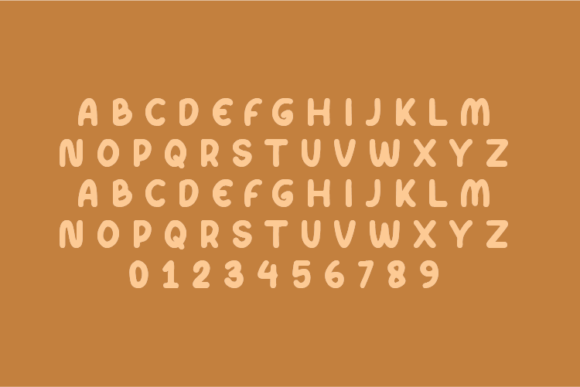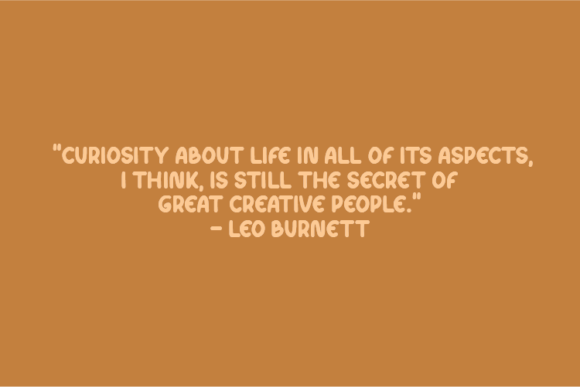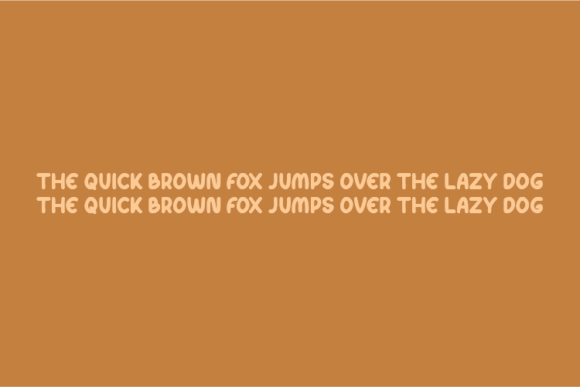
Doughnuts Font: A Deliciously Unique Display Font
Are you tired of using the same old fonts for your designs? Look no further than the Doughnuts Font, a natural display font that’s sure to add a touch of whimsy to your projects. What sets Doughnuts apart is its unique approach to font design, where not a single node in each character’s indentation has been altered. This results in a font that’s not only interesting and unique but also perfect for a variety of applications.
The Story Behind Doughnuts Font
The Doughnuts Font is a result of a creative experiment to push the boundaries of traditional font design. By leaving each character’s indentation untouched, the designer has created a font that’s reminiscent of handwritten notes, yet still maintains a level of sophistication. This approach gives Doughnuts a distinctive look that’s sure to grab attention.
Characteristics of Doughnuts Font
So, what makes Doughnuts Font so special? Here are a few key characteristics that set it apart:
- Natural look: The font’s natural, unaltered indentation gives it a relaxed, organic feel that’s perfect for designs that need a personal touch.
- Unique style: The unchanged nodes in each character create a distinctive look that’s unlike any other font.
- Versatility: Doughnuts Font is perfect for a wide range of applications, from quotes and notes to t-shirts and other merchandise.
Uses for Doughnuts Font
Doughnuts Font is a versatile typeface that can be used in a variety of creative projects. Here are a few ideas to get you started:
- Quotes and posters: Add a touch of personality to your inspirational quotes and posters with Doughnuts Font.
- Notes and journals: Use Doughnuts Font to add a personal touch to your notes, journals, and planners.
- T-shirts and merchandise: Create eye-catching designs for t-shirts, mugs, and other merchandise with Doughnuts Font.
- Digital media: Use Doughnuts Font in your digital media, such as social media graphics, blog posts, and email newsletters.
Why Designers and Crafters Love Doughnuts Font
Designers and crafters alike are drawn to Doughnuts Font for its unique style and versatility. Here are a few reasons why:
- Ease of use: Doughnuts Font is easy to read and use, making it perfect for a wide range of projects.
- Customization: The font’s unique style allows for endless customization options, so you can make it your own.
- Inspiration: Doughnuts Font is sure to inspire your creativity, whether you’re designing a poster, crafting a journal page, or creating a social media graphic.
In conclusion, Doughnuts Font is a deliciously unique display font that’s sure to add a touch of whimsy to your designs. With its natural look, unique style, and versatility, it’s perfect for a wide range of applications. Whether you’re a designer, crafter, or simply someone who loves to create, Doughnuts Font is a must-have in your font collection. So why settle for ordinary fonts when you can have a font that’s truly one-of-a-kind? Try Doughnuts Font today and see the difference it can make in your designs!
Tips and Tricks for Using Doughnuts Font
Here are a few tips and tricks to help you get the most out of Doughnuts Font:
- Experiment with sizes: Try using Doughnuts Font in different sizes to see how it looks in various contexts.
- Pair it with other fonts: Combine Doughnuts Font with other fonts to create interesting and dynamic designs.
- Play with colors: Use Doughnuts Font in different colors to add visual interest to your designs.